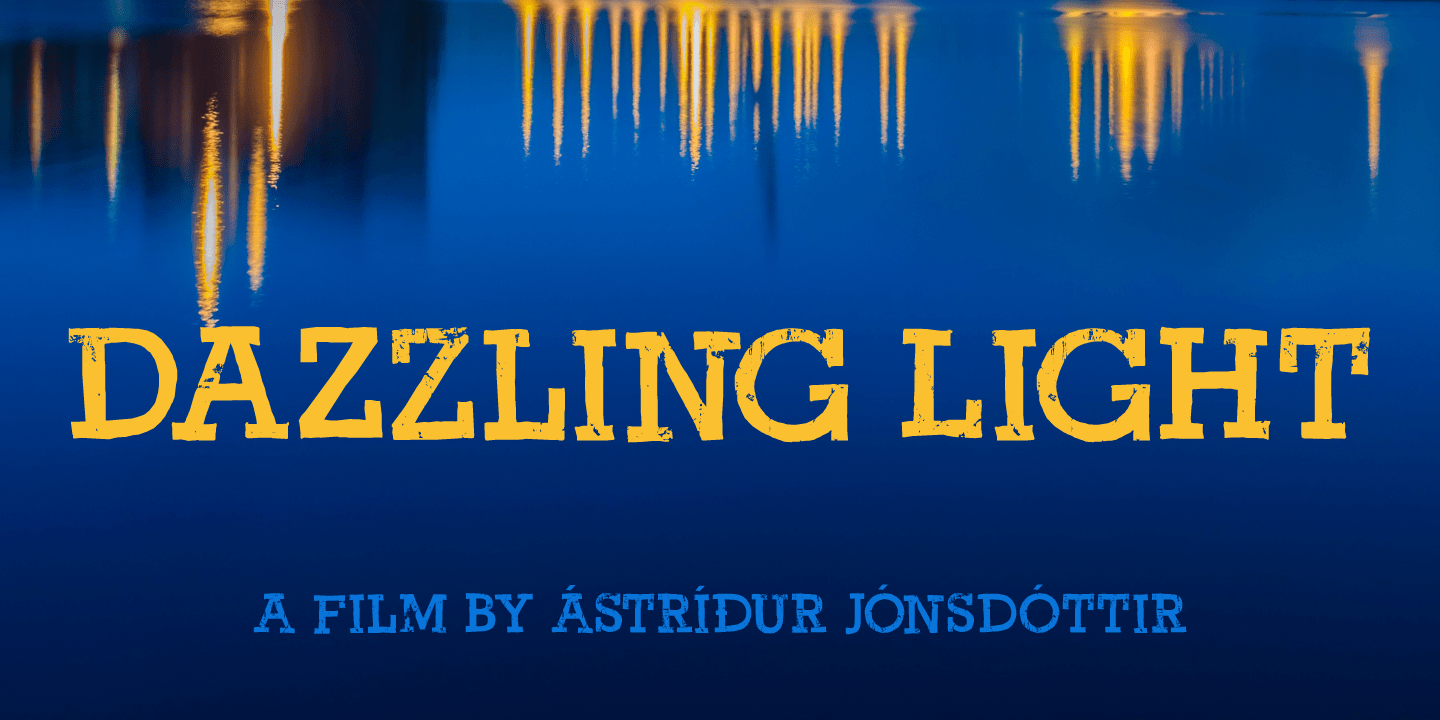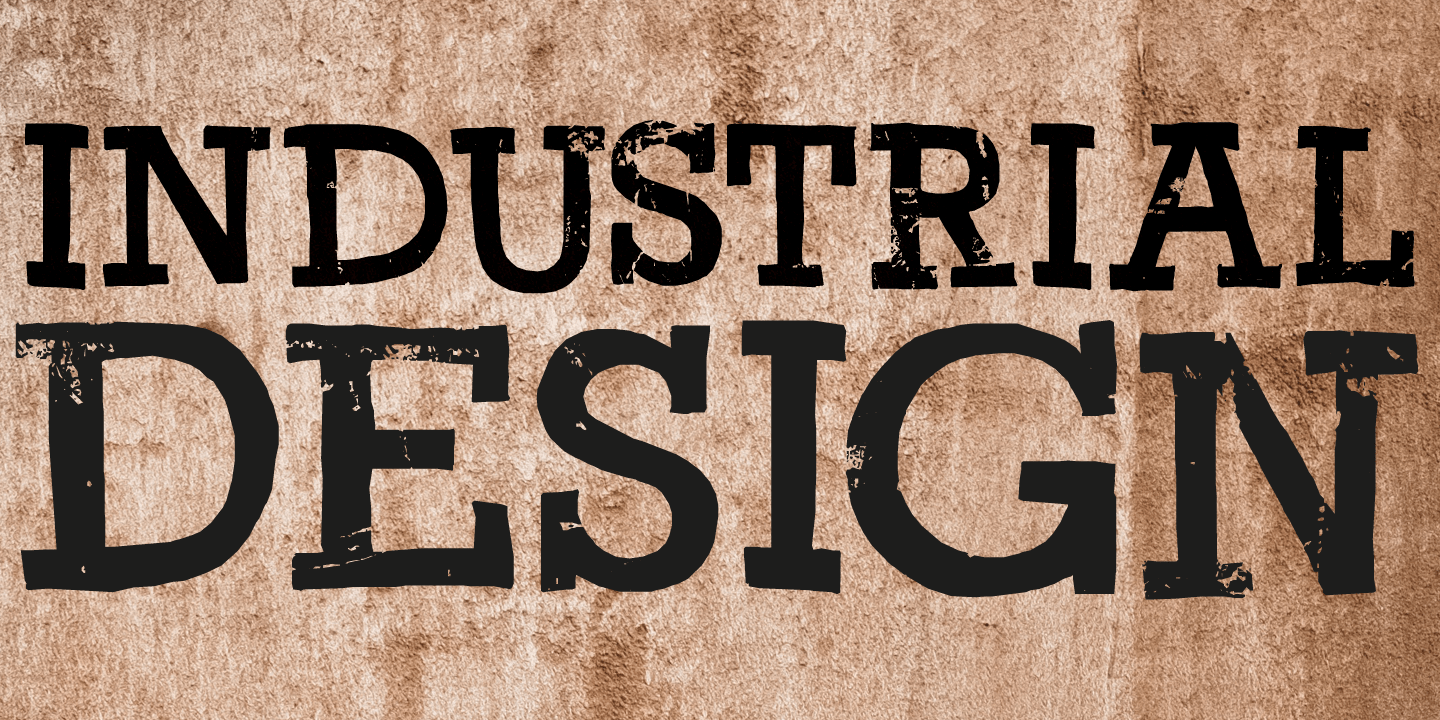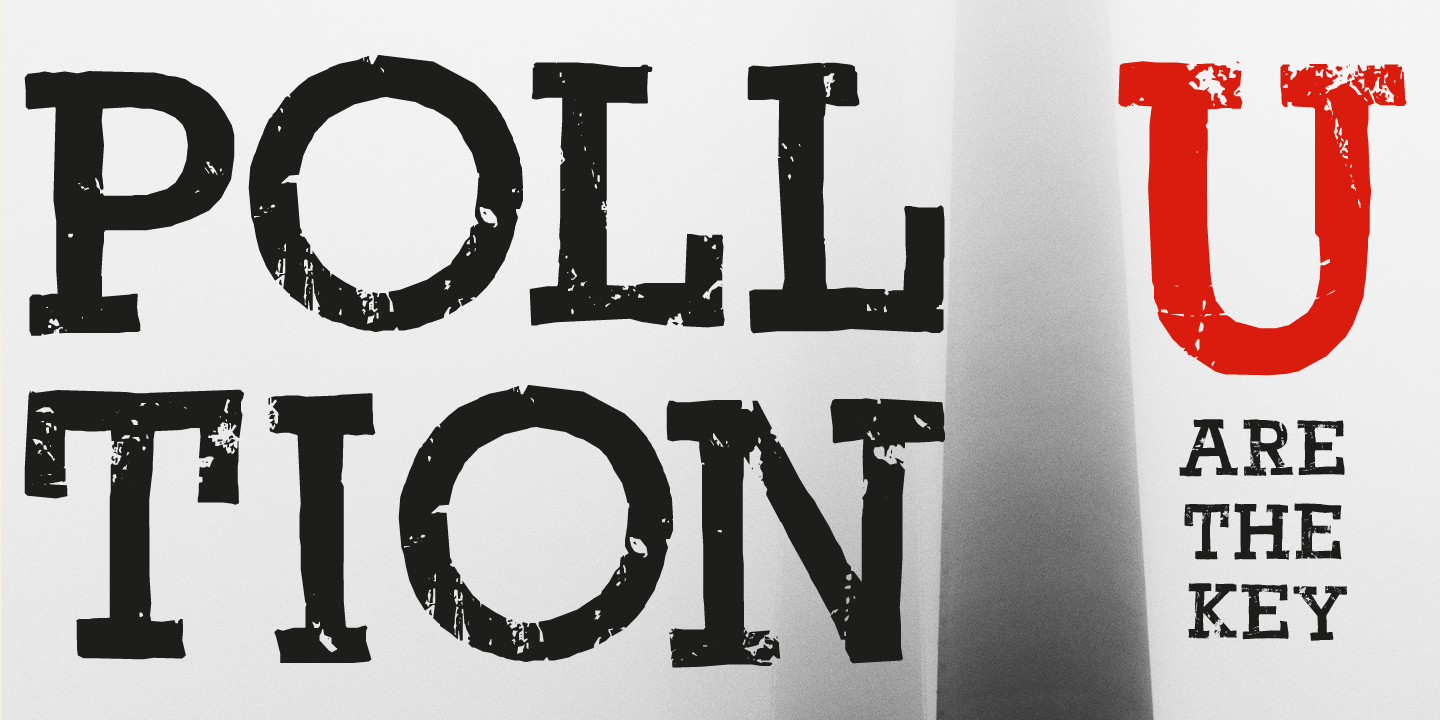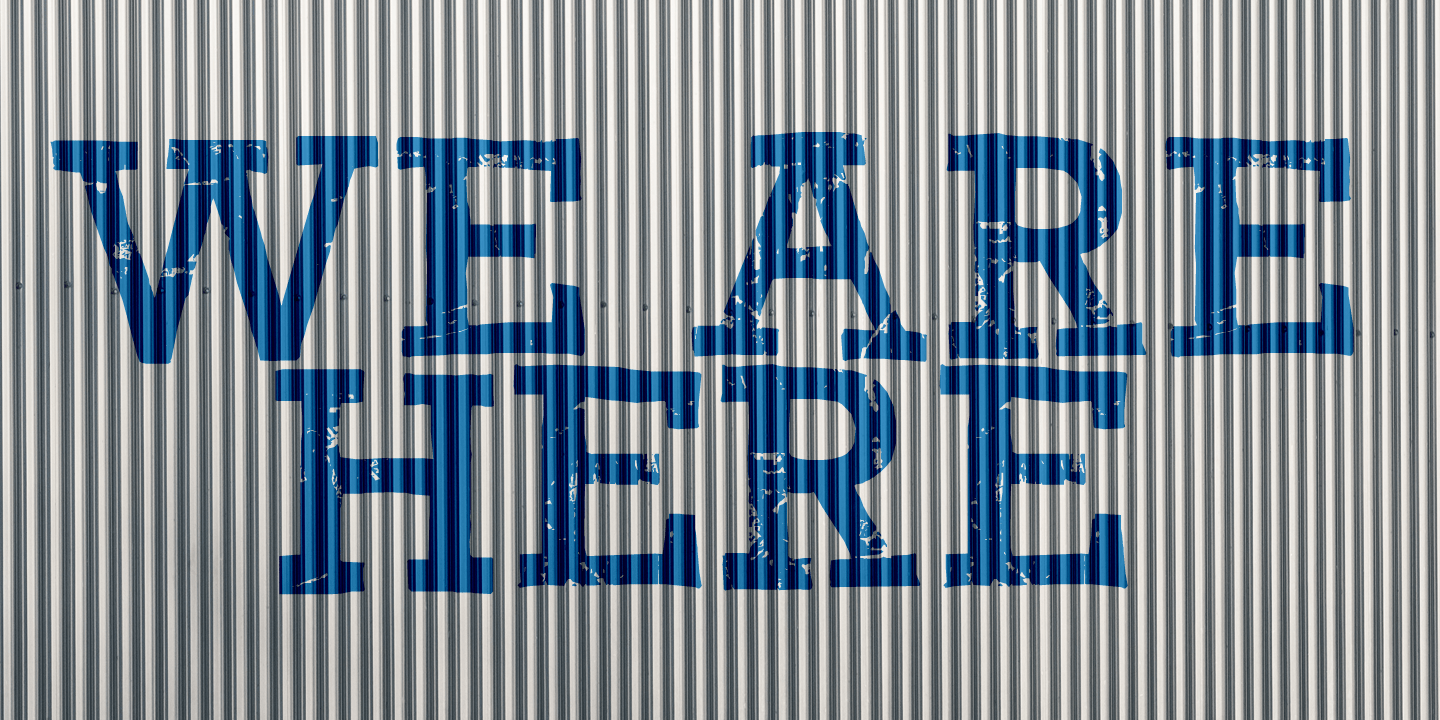
Return Policy
I bought something online, but when I received it, it wasn't exactly what I had hoped it would be. So I read the return policy and sent it back. And? came up with this font and its name in the process!
Return Policy is a hand drawn slab serif, inspired by a bunch of slab serifs from the early 20th century.
Return Policy has been given a ?grunge? overhaul, making it ideal for sturdy products, websites with an industrial look and manly posters.